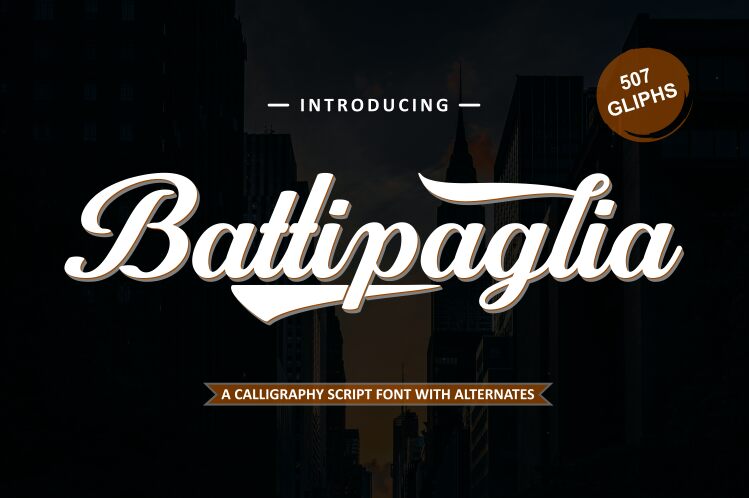
Battipaglia, a captivating calligraphic font designed by Ahmad Rofingi, exudes a harmonious blend of elegance and sophistication. Its flowing, cursive strokes create a sense of effortless grace, evoking a timeless beauty that transcends the boundaries of traditional typography. The intricate flourishes and graceful curves impart a sense of artistry and craftsmanship, making Battipaglia an exceptional choice for projects that demand a refined and distinguished aesthetic.
This versatile font lends itself beautifully to a variety of design applications, from high-end branding and editorial layouts to wedding invitations and luxury product packaging. Its calligraphic flair and distinctive personality make Battipaglia an ideal selection for those seeking to infuse their designs with a touch of timeless elegance and sophistication.